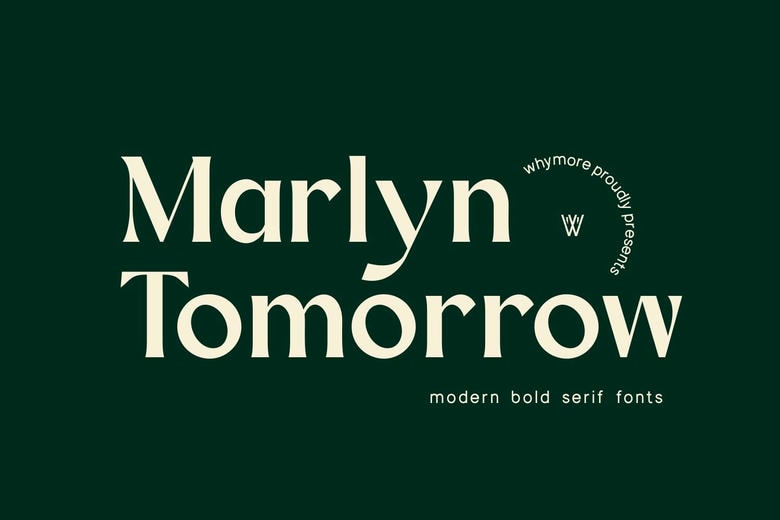
Marlyn Tomorrow Font
Marlyn Tomorrow is a luxurious minimal serif typeface that is aimed at classy branding and elegant visual identities. This font is designed using simple high contrast strokes, a graceful proportion and classic serif details, which give it a confident and elegant appearance.
It combines contemporary minimalism and the vintage editorial beauty – hence it is suitable when brand owners prefer an elegant, relaxed, and strong appearance. Marlyn Tomorrow works with plain typography and turns it into an eye-catching brand message, whether it is used as a logo or fashion campaign or as a part of an editorial layout.
Marlyn Tomorrow Serif Font